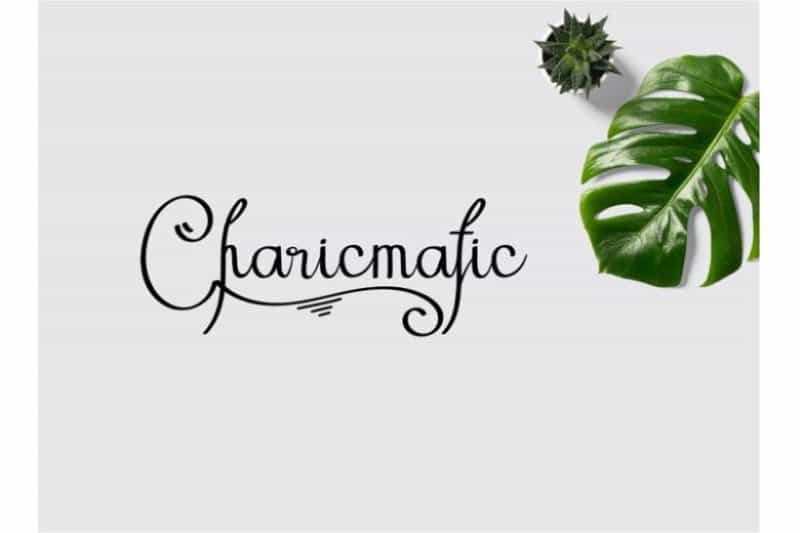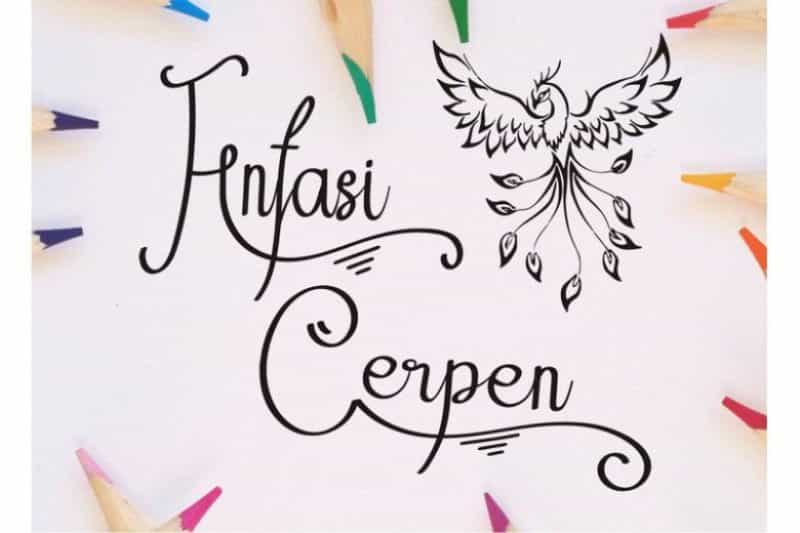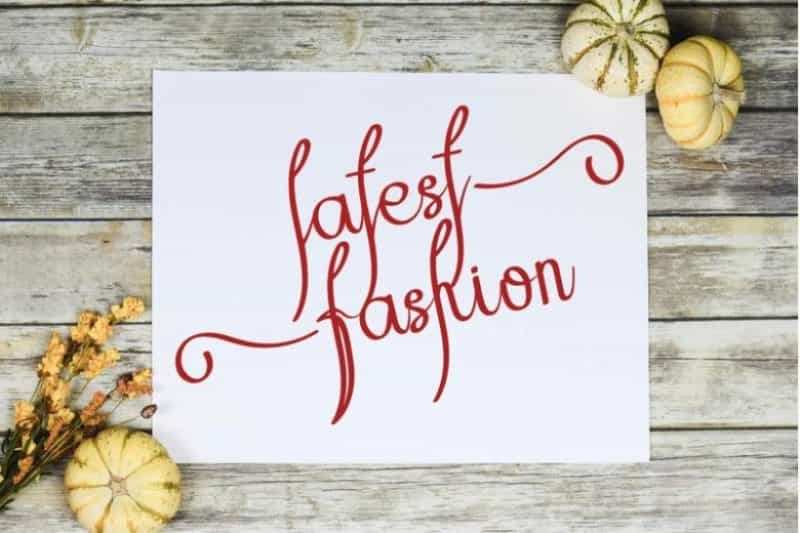
Discover Shahira Handwritten Font, part of the Calligraphy Handwritten collection—a versatile and unique font perfect for adding a personal touch to your projects. Download it for free and enjoy crafting designs with style, from invitations to social media posts. This font is available exclusively for personal use, giving you the freedom to create without limits. Unlock your creativity with Shahira Handwritten Font today!
The font looks individual and can be used in posters, logos, on aircrafts, in clothing designs, and maybe something more.